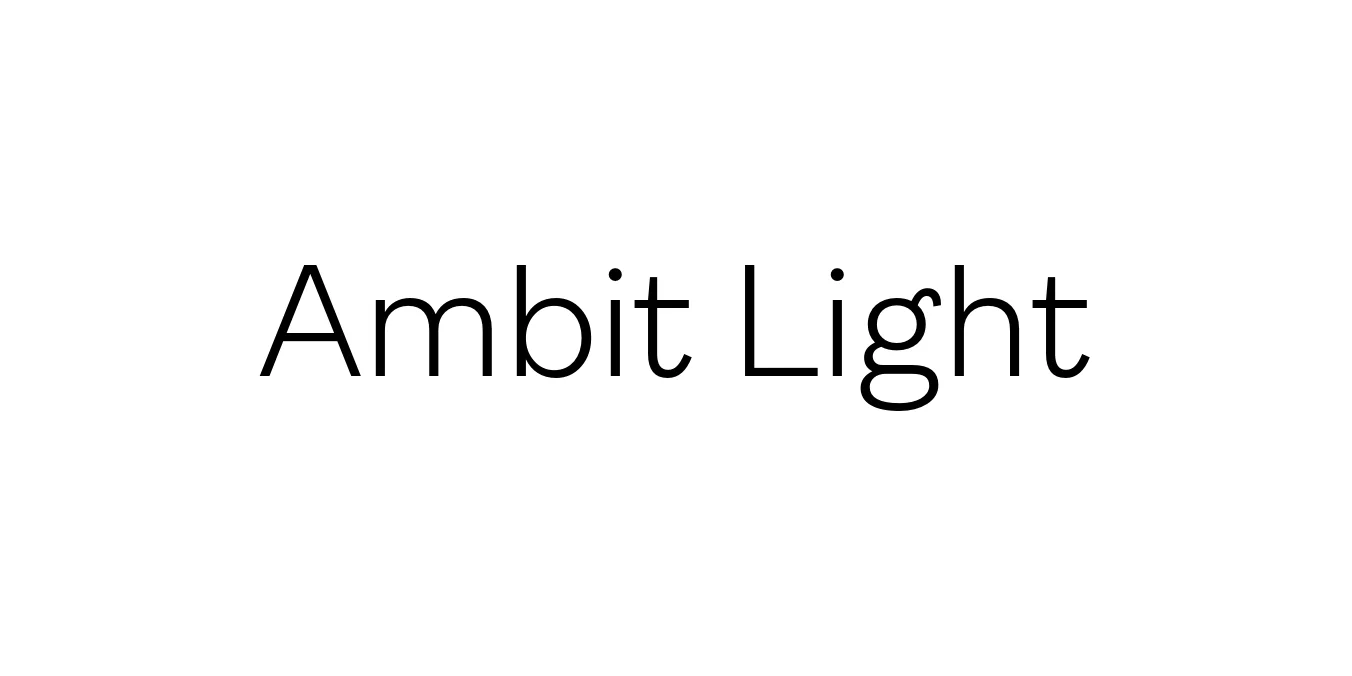
Ambit Light
Designed by Cobi Volkan
Ambit is a distinctive sans-serif typeface designed by Cobi Volkan and released through CoType Foundry. It represents a unique intersection between early grotesque letterforms and contemporary geometric precision. The Light weight specifically offers a delicate yet assertive presence, characterized by its generous x-height and the idiosyncratic 'curly' terminals on characters like 'f' and 'j', which provide a humanistic touch to its digital framework.
The font was developed to bridge the gap between classic functionality and modern eccentricity. While many geometric sans-serifs lean towards a cold or clinical aesthetic, Ambit Light maintains a sense of character and warmth. This makes it an exceptional choice for designers looking for a typeface that is both highly legible in body text and visually engaging when used for larger display applications.
Ambit Light Best Uses
Creating a unique and memorable visual identity with its eccentric terminals.
Providing a clean yet distinctive look for magazine layouts and headers.
Ensuring high readability across digital screens while maintaining style.
Catching attention with its modern and professional aesthetic.